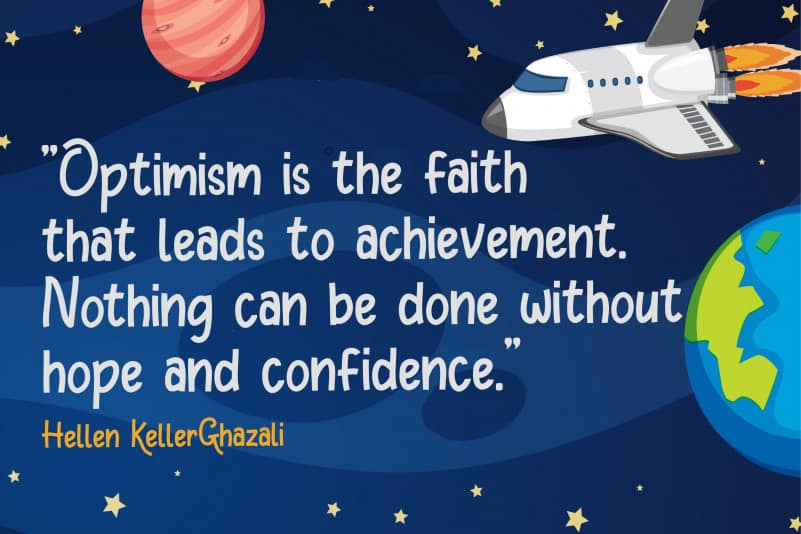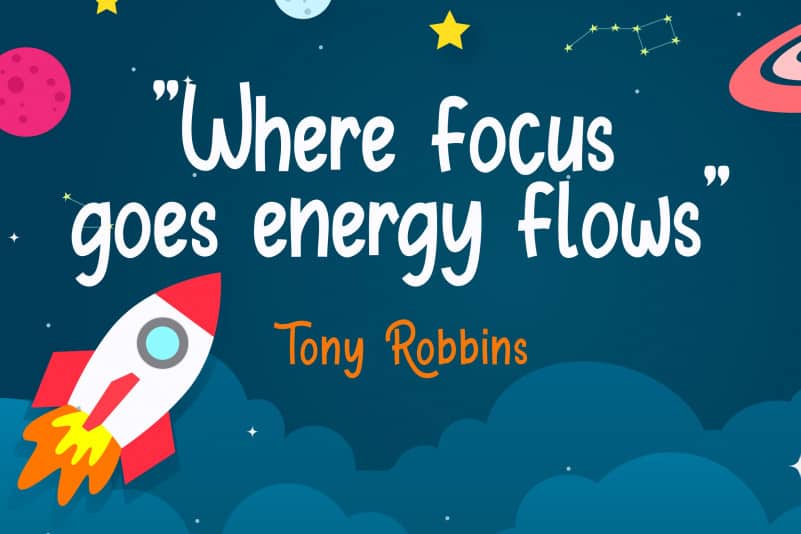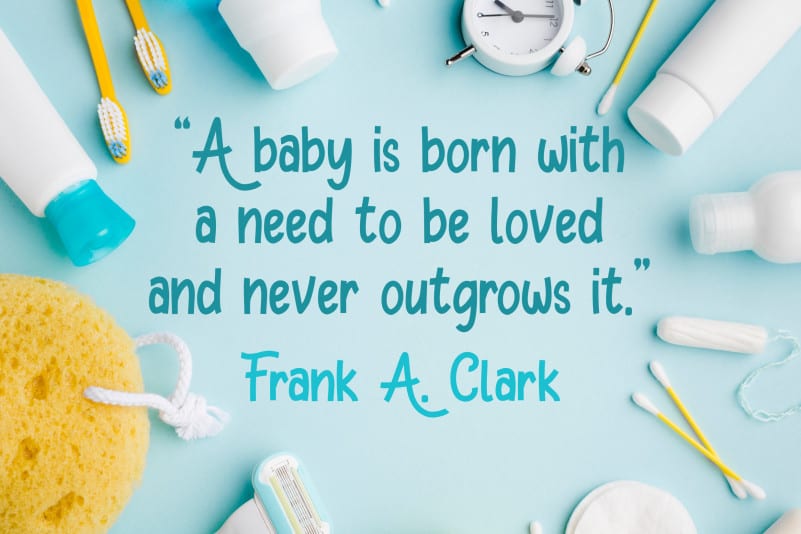
Amina Reska Font
Amina Reska Font is a cute, colorful, and friendly display font. Get inspired by its authentic feel and use it to make beautiful wedding invitations, beautiful stationery art, eye-catching social media posts, and cute greeting cards. Add this beautiful display font to your every creative idea and watch how it makes it stand out! The only limit is your imagination!